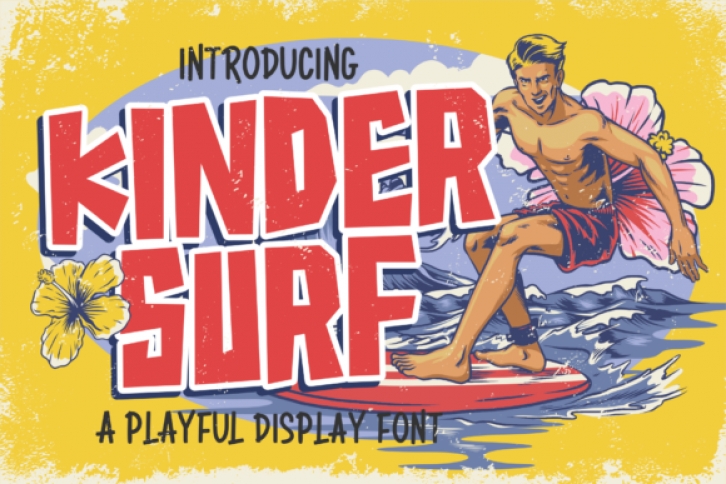
Kinder Surf is a unique, playful and eye-catching display font. This font is ideal for a large number or projects such as: online games, posters, movie titles, fast food menus, magazines, and so much more.